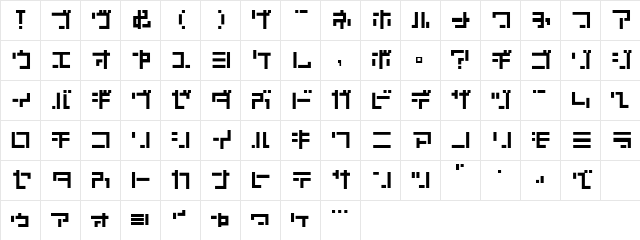
KATACHI RegularJ
KATACHI takes a measured approach to typography — its balanced proportions and neutral character make it a reliable workhorse for both digital and print work.